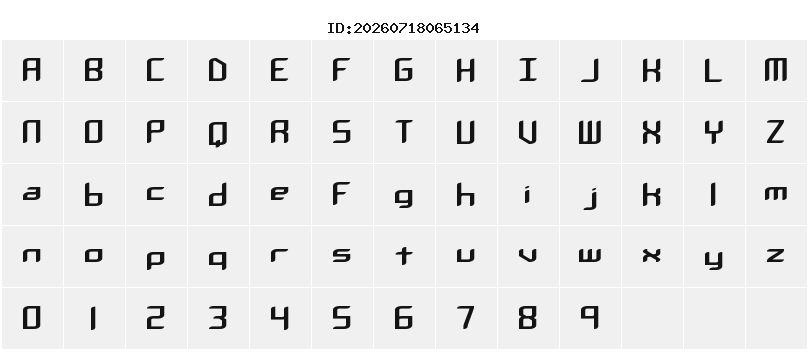
• Font Name: Chemical Reaction A BRK
• Designer: ÆNIGMA FONTS - Brian Kent
Chemical Reaction A BRK.ttf is a modern, elegant sans-serif font designed for ultimate readability and visual harmony. Perfect for branding, headlines, web design, and print materials.